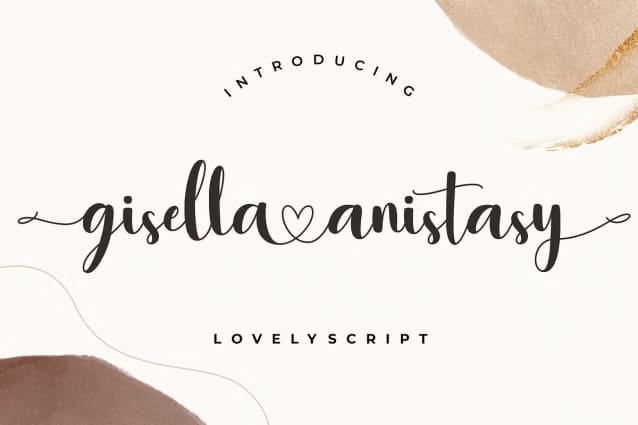
Gisella Anistasy Font
Gisella Anistasy Font is lovely script font with calligraphy modern style that looks classy and lovely. Gisella Anistasy is perfect for branding projects, logo, wedding designs, social media posts, advertisements, product packaging, product designs, label, photography, watermark, invitation, stationery and any projects that need handwriting taste.